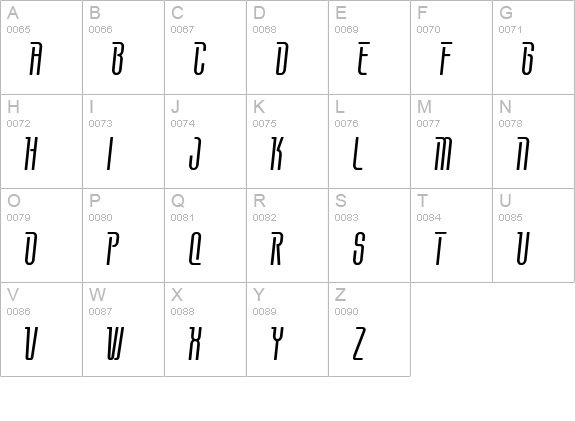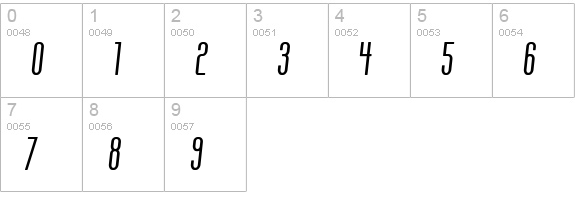
Contact Light Font Details
Contact Light is a refined, elegant variant in the Contact typeface family \xE2\x80\x94 well suited to elegant body text, refined sub-headings, and luxury branding.
Contact Light font is a sleek and modern typeface that exudes elegance and sophistication. Its clean lines and balanced proportions make it ideal for a wide range of design projects, from branding to editorial layouts. The light weight of the font adds a delicate touch, perfect for conveying a sense of refinement and grace. What sets Contact Light font apart is not only its aesthetic appeal but also its versatility. Whether you're designing a website, creating marketing materials, or crafting a logo, this font will effortlessly elevate your work to the next level. And the best part? Contact Light font is completely free to download at FontsMarket.com. With just a few clicks, you can add this stunning typeface to your design arsenal and take your projects to new heights. Don't miss out on this opportunity to enhance your creations with Contact Light font's timeless beauty and sophistication.